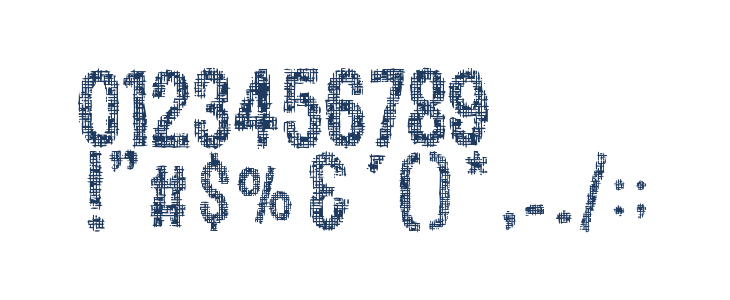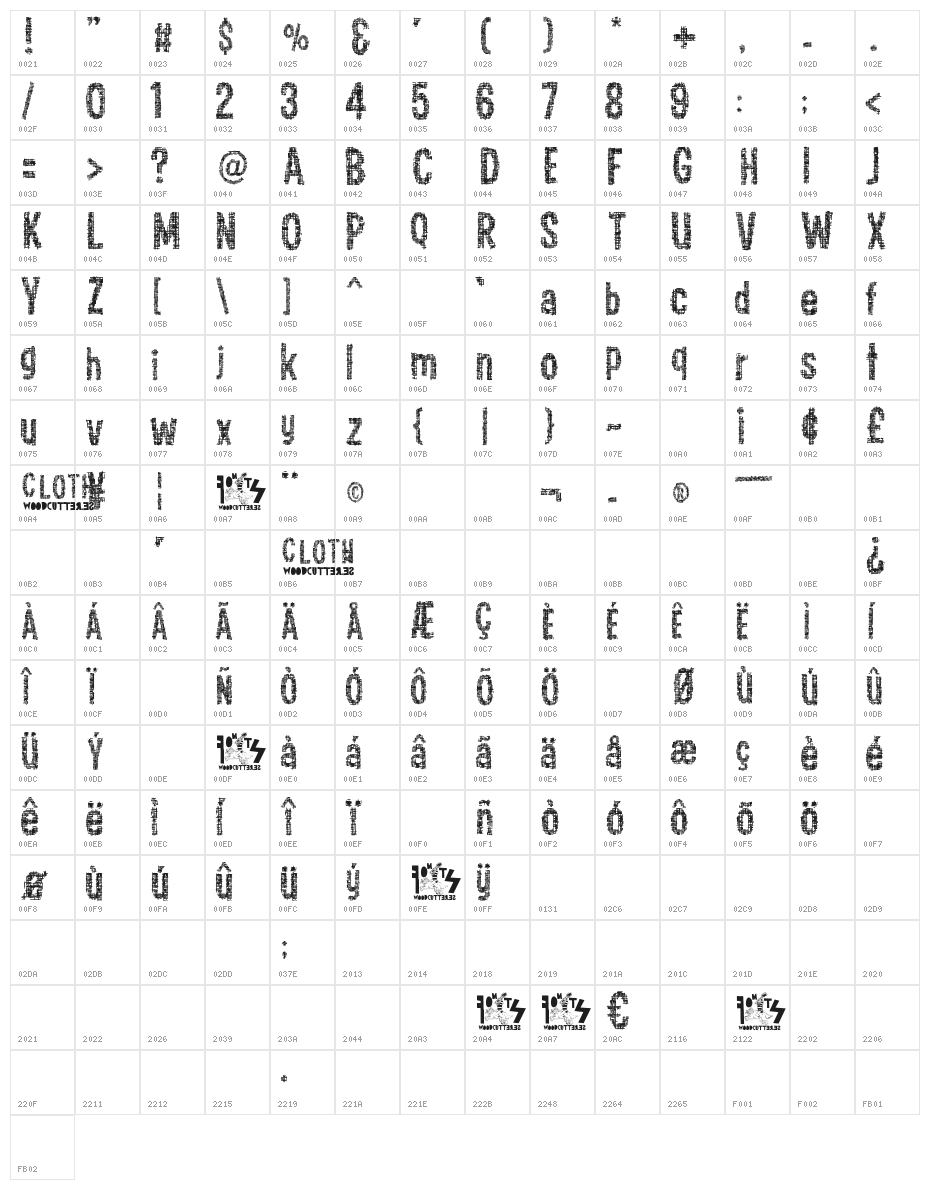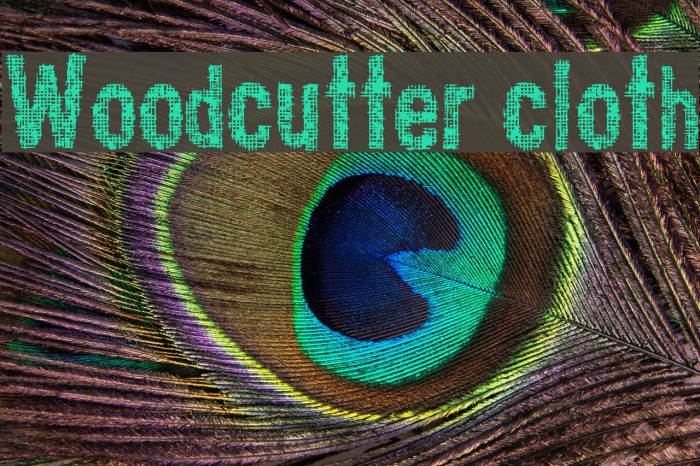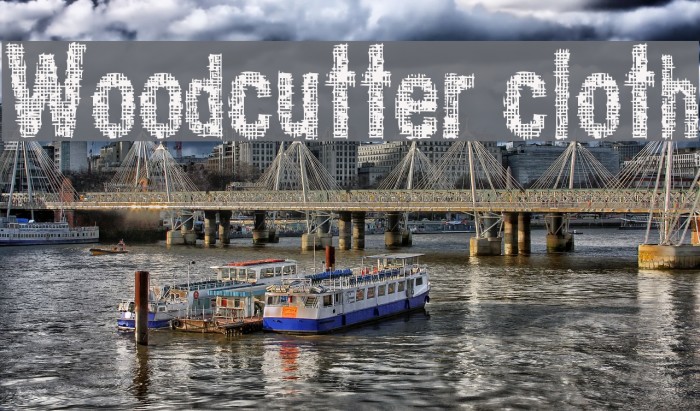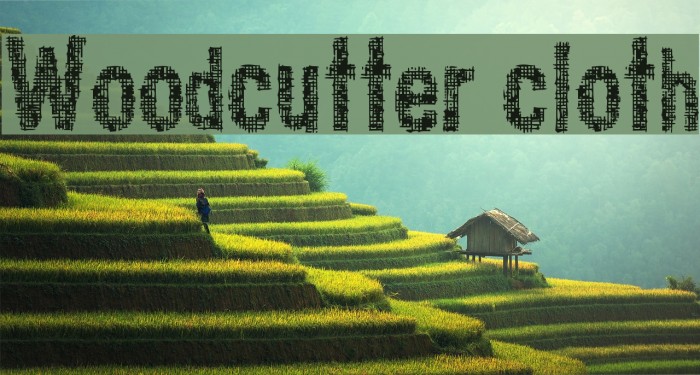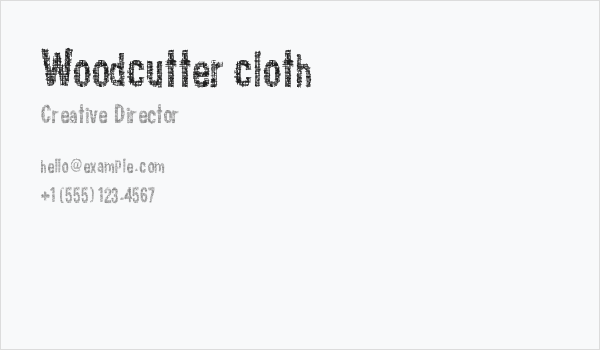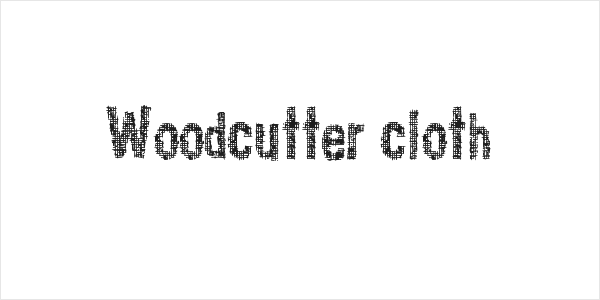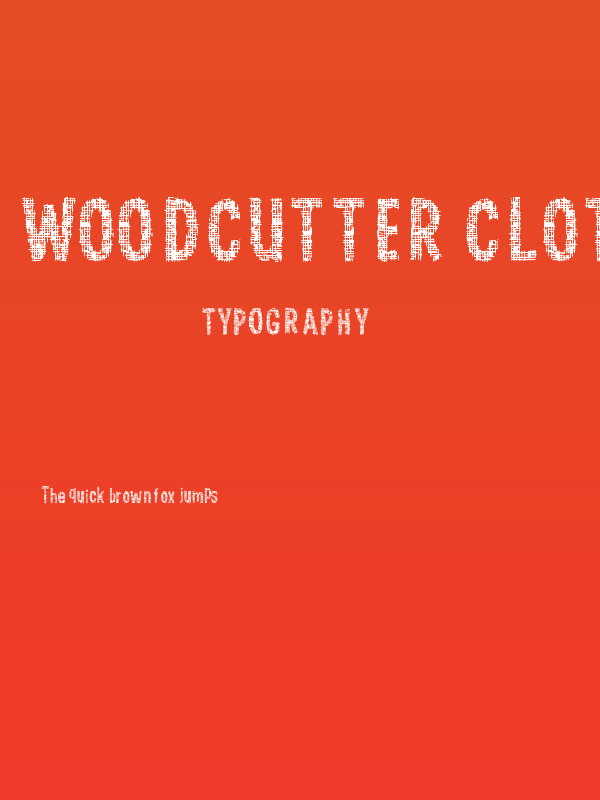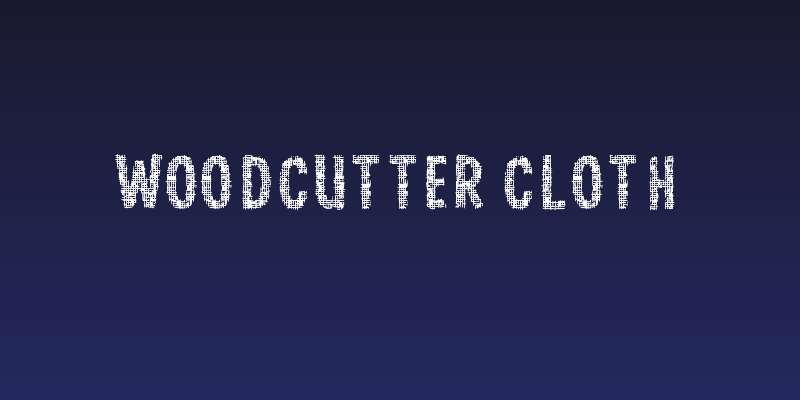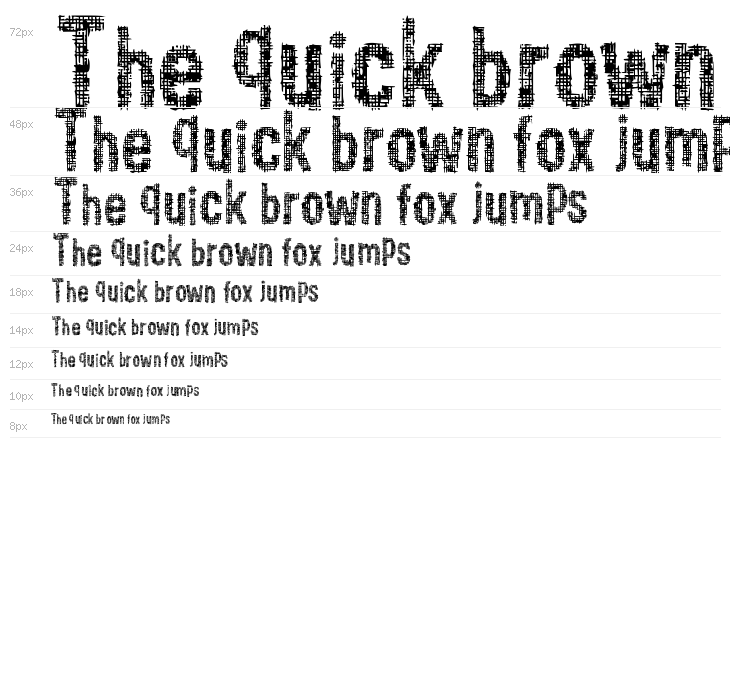
Woodcutter cloth Font
Woodcutter cloth Description
This font features a unique, textured design that resembles a woven fabric or a crosshatched pattern. Each character is filled with a dense grid of lines, creating a rustic and handcrafted appearance. The uppercase and lowercase letters maintain a consistent style, with the texture adding depth and visual interest. The numerals and special characters follow the same design principles, ensuring uniformity across the entire set. This font's distinct style makes it stand out, offering a bold and artistic look that is both eye-catching and memorable.
| Use Case | Logos, Posters, Creative Packaging |
| Proposed Projects | Ideal for projects requiring a rustic or handcrafted feel, such as branding for artisanal products, posters, and creative packaging designs. |